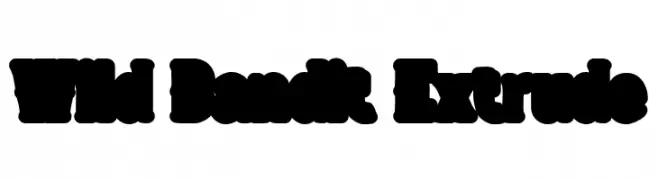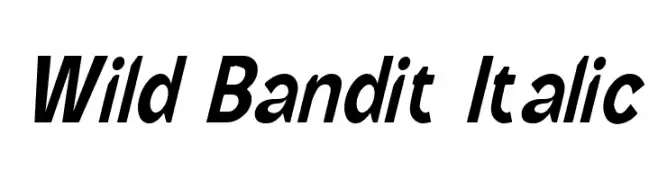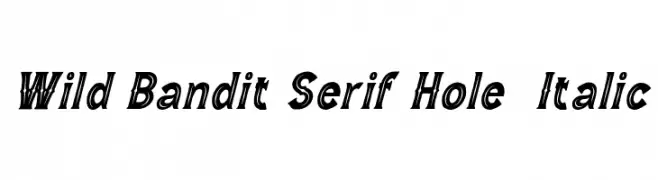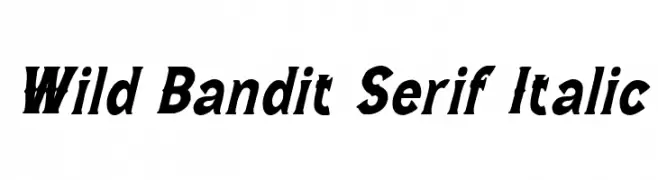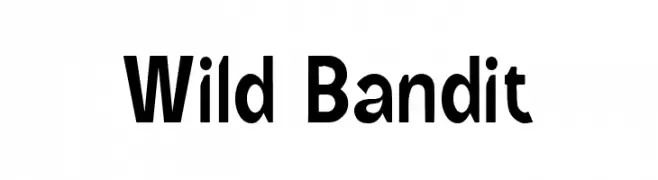
• Wild Bandit Italic
A bold, italic font with a modern and dynamic style.
• Wild Bandit Serif Hole Italic
A bold, italic serif font with a unique 'hole' effect for a dynamic and adventurous look.
• Wild Bandit Serif Italic
A bold, italic serif font with dynamic movement and sharp serifs.
• Wild Bandit Serif
A bold, adventurous serif font with strong strokes and distinctive details.
• Wild Bandit
A bold, modern font with strong, thick strokes and rounded edges.
• Wild Bandit Outline Italic
Bold, outlined italic font with a dynamic and playful style.
• Wild Bandit Extrude Italic
A bold, extruded italic font with a playful and dynamic style.
• Wild Bandit Serif Hole
A bold serif font with decorative cutouts, perfect for adventurous and creative designs.
• Wild Bandit Outline
A bold, outlined font with a vintage, playful style.
• Wild Bandit Extrude
Bold, chunky font with rounded edges and a strong, playful presence.